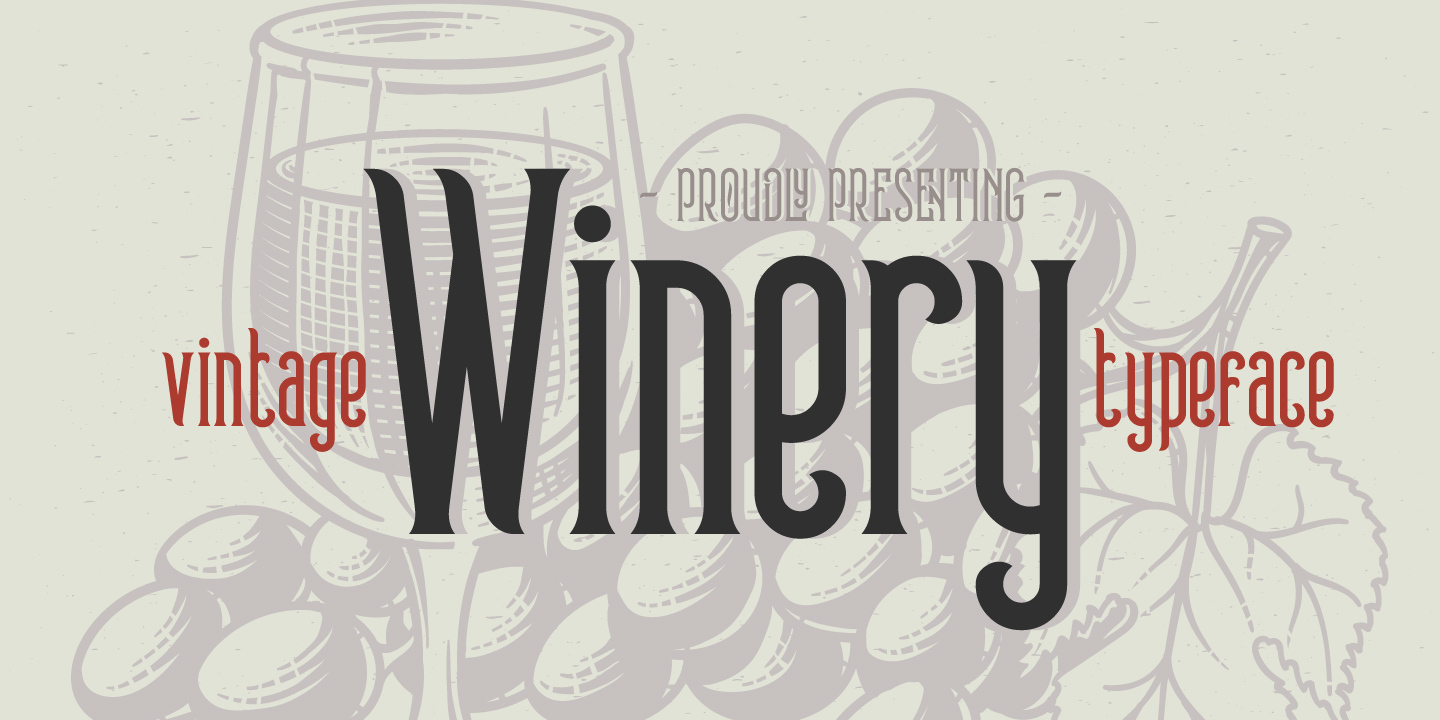
Winery Font is perfect for vineyard branding, wine label designs, cellar signage, sommelier certifications, grape harvest marketing, wine tasting events, and sophisticated viticulture communications.
What makes Winery Font exciting is its vintner elegance and viticultural sophistication, featuring refined letterforms that capture the essence of wine craftsmanship while delivering distinguished visual appeal and oenological authenticity.
The Winery Font family includes Light, Regular, Medium, Bold, and Heavy weights, plus vintage variants and vineyard alternates that enhance the font's sophisticated character and wine industry possibilities.
Winery Font Free Download embodies the timeless tradition of winemaking and the sophisticated culture of viticulture through elegant typography design. This distinguished typeface captures the artisanal craftsmanship of vineyard masters and the refined appreciation of wine connoisseurs, creating a sophisticated visual language that speaks to wine enthusiasts and viticulture professionals who value oenological excellence, terroir authenticity, and the distinguished appeal of fine wine culture. The font's elegant character and vineyard appearance make it perfect for wineries, wine retailers, and oenological organizations that want to communicate quality, tradition, and the sophisticated appeal of wine craftsmanship.
Wineries and wine industry professionals consistently select Winery Font for projects that require authentic viticulture credibility and sophisticated visual appeal. The typeface's refined construction and oenological personality make it exceptionally effective for vineyard estates, wine shops, and sommelier services where wine quality and viticultural expertise are paramount. Each character has been crafted with vintner precision to ensure maximum sophistication across all wine applications and oenological environments.
The viticulture advantages of Winery Font extend beyond its wine appeal to include practical functionality for diverse oenological applications. The font maintains excellent readability on wine labels while delivering the distinctive character that creates memorable wine experiences and connects with connoisseurs seeking authentic viticultural quality. Its comprehensive character set includes wine symbols and vineyard elements that make it particularly suitable for oenological documentation and wine industry communication.
Vineyard estates, wine retailers, and sommelier organizations frequently choose Winery Font because of its ability to instantly convey wine authenticity and viticultural sophistication. The typeface's elegant aesthetic helps establish credibility in competitive wine markets while appealing to connoisseurs who value wine craftsmanship, terroir expression, and the refined experiences that come from authentic viticulture and distinguished wine appreciation.